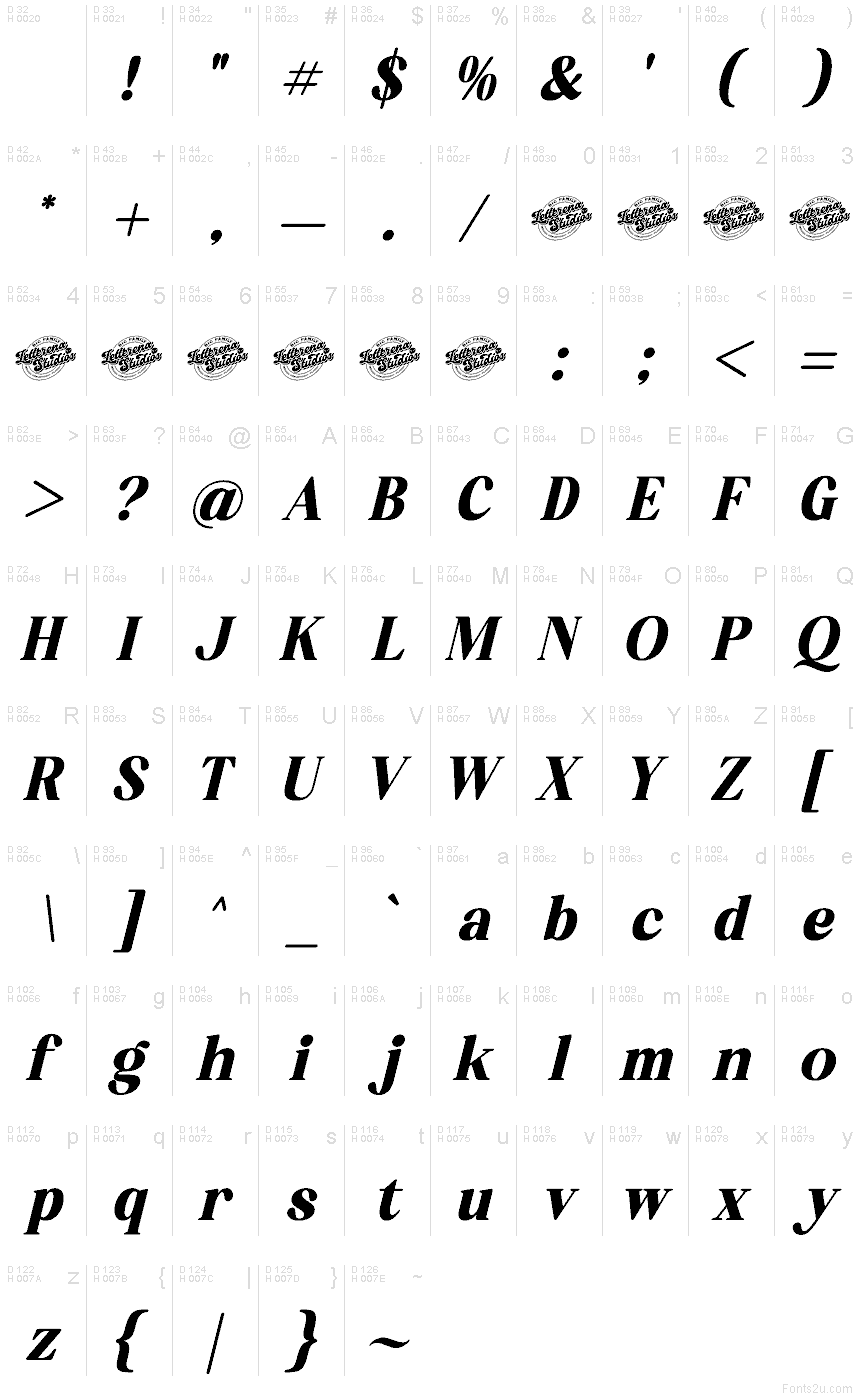
Bredga DEMO VERSION Italic
Bredga Italic font by Letterena Studios is a free italic serif typeface. Part of the Bredga family, it leans with confident momentum: thick, inky strokes, generous curves, and juicy ball endings that feel sculpted rather than drawn. That lush heft gives it a charismatic voice—romantic yet grounded—so a single word lands with presence.
Using Bredga Italic, headlines and logos come off bold and buttery, while packaging, magazine covers, fashion branding, restaurant menus, and event posters gain a stylish swing. Tight spacing builds rhythm without getting cramped, and the smooth contours stay legible at larger sizes. Pair this free font with a light, neutral sans for body copy to keep the spotlight on its swooping forms.